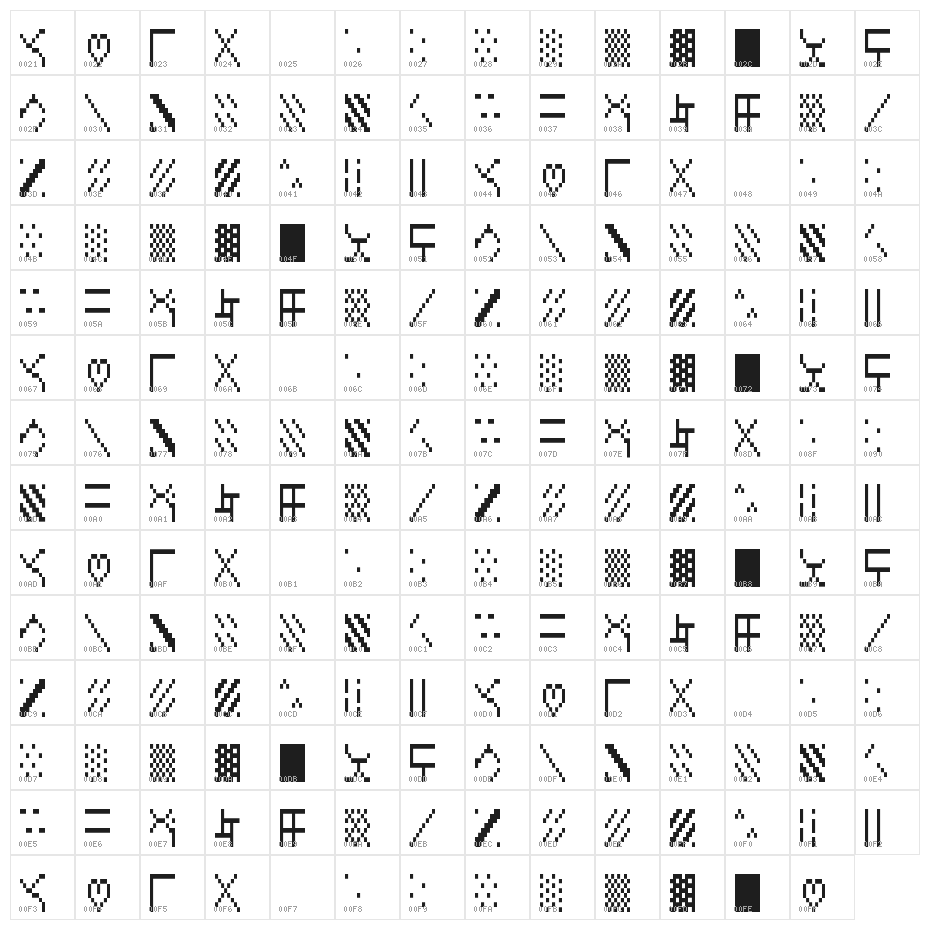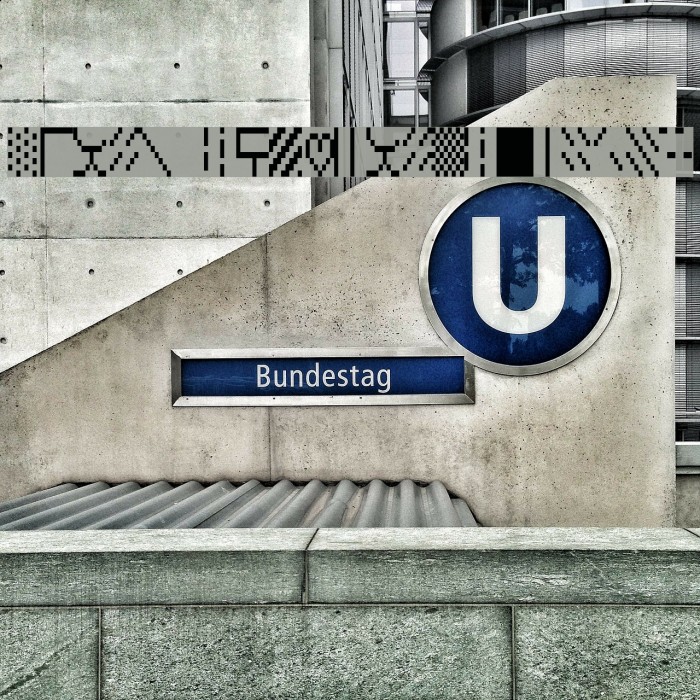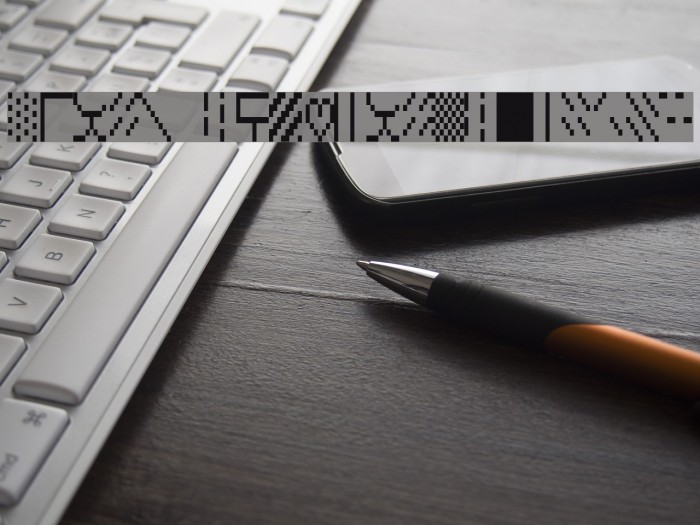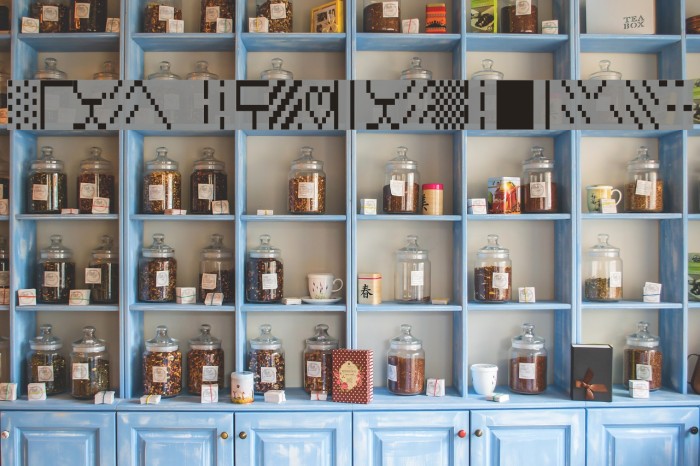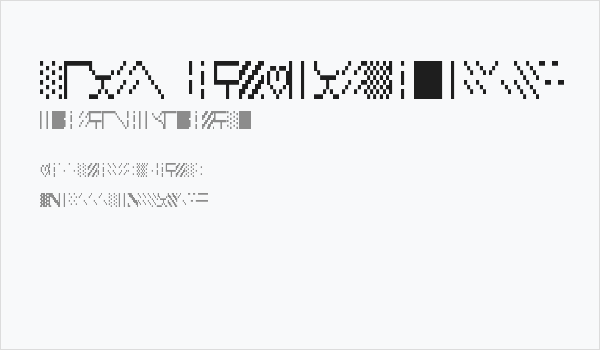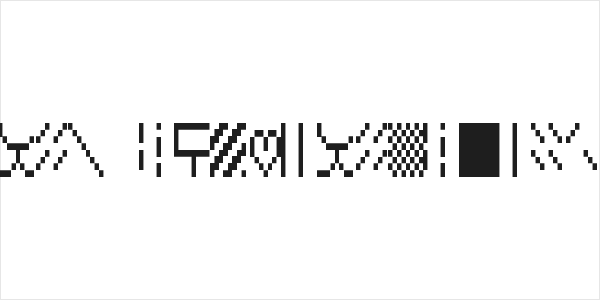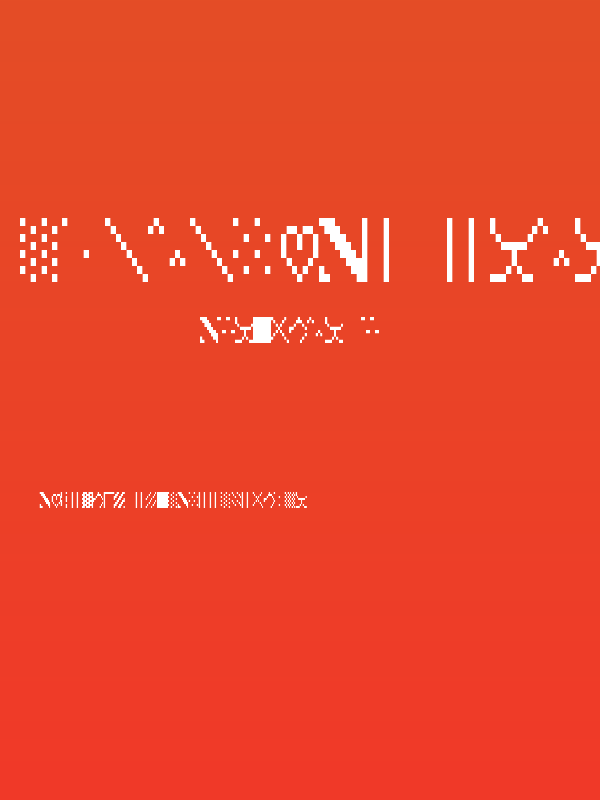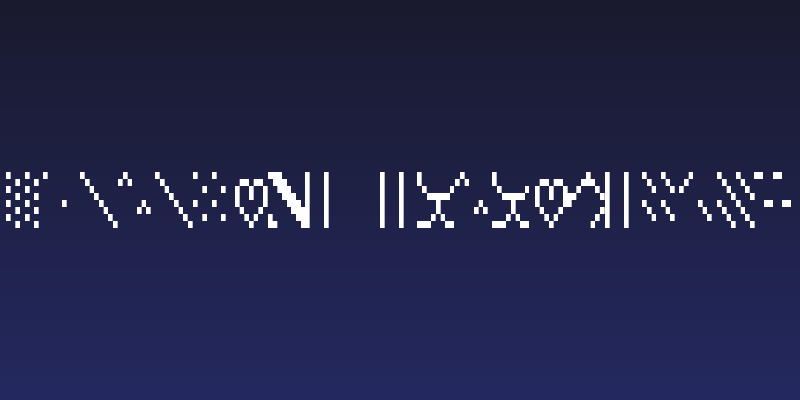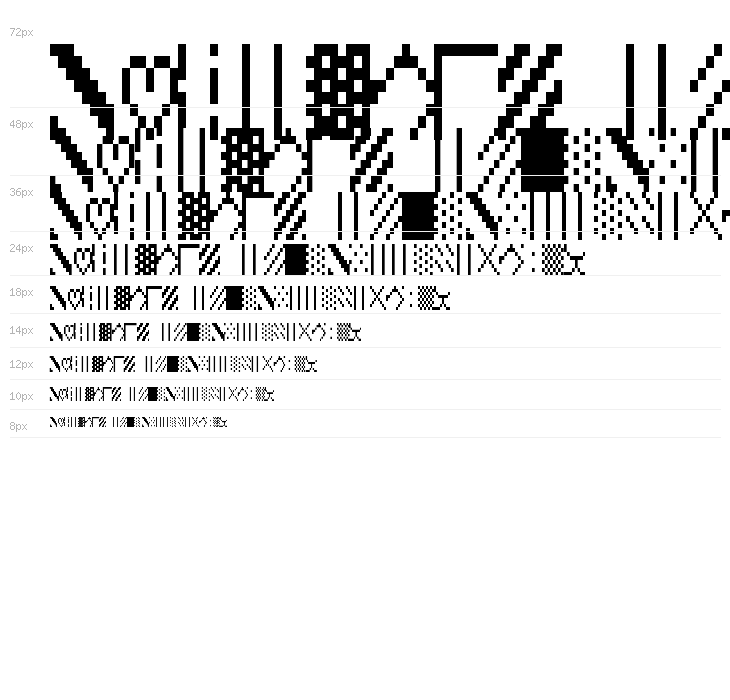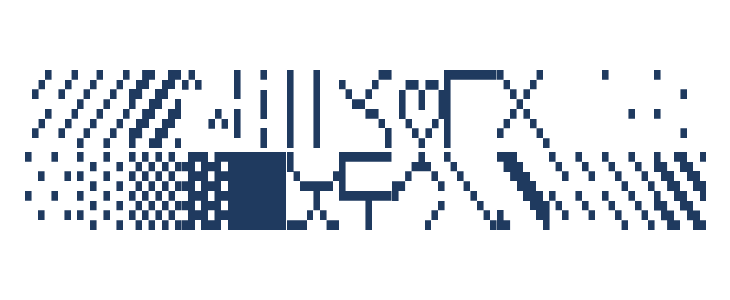
LisaSketch Paper 2X3Y Font
LisaSketch Paper 2X3Y Description
This image does not depict a valid font. Instead, it appears to be a collection of abstract patterns and shapes that do not form recognizable alphanumeric characters. The elements are composed of pixelated, geometric designs with varying levels of density and complexity. These designs are arranged in a grid-like format, but they do not correspond to any known typographic system or character set.
| Overall Style | Abstract |
| Use Case | Artistic designs, Background textures |
| Proposed Projects | This design could be used for abstract art projects, digital artwork, or as a background texture in graphic design. |